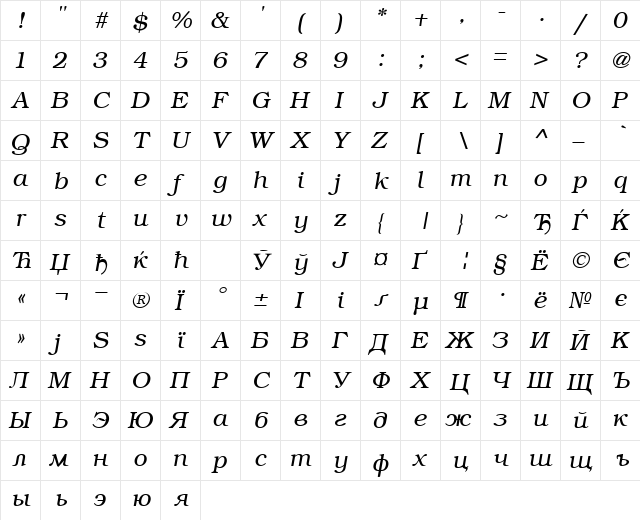
ER Bukinist 1251 Italic
Design Context for ER Bukinist 1251 Typeface
ER Bukinist 1251 is a composed and adaptable typeface that performs quietly and consistently across a wide range of design contexts. The dynamic lean of this cut emphasises speed and emphasis in any layout.